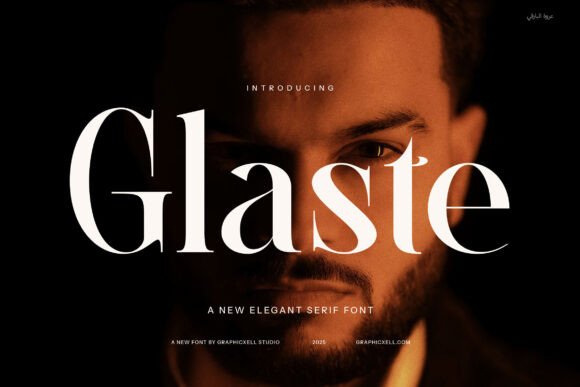
Glaste Font: Elevate Your Design with Elegance and Sophistication
In the world of typography, a font can make all the difference in the aesthetic and effectiveness of a design. For those seeking a typeface that embodies both modern elegance and timeless sophistication, the Glaste Elegant Serif Font is an exceptional choice. This contemporary and stylish font is designed to offer a unique blend of classic serifs and modern flair, making it perfect for a wide range of design projects.
Introduction to Glaste Font
Glaste Font is a meticulously crafted typeface that stands out for its finely tuned serifs, smooth curves, and distinctive ligatures. These features not only contribute to its elegant appearance but also provide designers with the flexibility to create customized and unique compositions. Whether you’re working on a luxury brand’s logo, a high-end fashion magazine, or an elegant wedding invitation, Glaste Font is designed to elevate your design.
Key Features of Glaste Elegant Serif Font
- Finely Crafted Serifs: The serifs in Glaste Font are designed with precision, offering a subtle yet sophisticated finish that enhances the readability and aesthetic appeal of the text.
- Smooth Curves: The curves in Glaste are smooth and flowing, contributing to the font’s elegant and modern feel. These curves ensure that the text appears refined and polished, regardless of the context.
- Unique Ligatures: Ligatures are special characters that combine two or more letters into a single glyph. Glaste Font includes a range of unique ligatures that allow designers to add a personal touch to their typography, creating a more distinctive and engaging visual experience.
- Alternate Forms: To further enhance its versatility, Glaste Font comes with alternate forms of its characters. These variations enable designers to experiment with different styles and create customized typographic compositions that stand out.
Design Versatility with Glaste Font
One of the standout qualities of Glaste Elegant Serif Font is its versatility. The inclusion of alternate forms and ligatures means that designers have a wide range of creative options at their disposal. This versatility makes Glaste suitable for various design applications, from editorial and advertising to branding and packaging.
For editorial projects, such as magazines and newspapers, Glaste Font offers a level of sophistication and elegance that can elevate the publication’s overall look and feel. In advertising, the font’s modern yet timeless appeal can help brands communicate their message in a stylish and compelling way.
Timeless Sophistication Meets Modern Elegance
Glaste Font strikes a perfect balance between timeless sophistication and modern elegance. Its classic serifs evoke a sense of tradition and reliability, while its smooth curves and contemporary design elements inject a dose of modernity. This balance makes Glaste an excellent choice for brands and designers looking to create a visual identity that feels both current and enduring.
The font’s ability to convey elegance and sophistication without appearing overly ornate or traditional sets it apart from other serif fonts. This quality makes Glaste particularly well-suited for luxury brands, high-end products, and premium services.
Applications of Glaste Font
Glaste Elegant Serif Font’s versatility and aesthetic qualities make it suitable for a wide range of applications, including:
- Branding and Logo Design: Create a lasting impression with a logo that exudes elegance and sophistication.
- Editorial Design: Elevate magazines, newspapers, and digital publications with refined typography.
- Advertising: Stand out in the crowded advertising space with typography that commands attention and conveys luxury.
- Packaging Design: Add a touch of elegance to product packaging and make it memorable.
- Wedding and Event Invitations: Create beautiful, bespoke invitations that set the tone for special occasions.
Glaste Elegant Serif Font is a powerful tool for designers seeking to infuse their projects with a sense of modern elegance and timeless sophistication. Its finely crafted serifs, smooth curves, unique ligatures, and alternate forms make it a versatile and stylish typeface suitable for a wide range of design applications.
By choosing Glaste Font, designers can create typography that not only looks beautiful but also communicates a sense of luxury, elegance, and refinement. Whether you’re working on a high-end brand project, a creative editorial piece, or a special event invitation, Glaste Font is an excellent choice for elevating your design to the next level.
FAQs About Glaste Font
- What makes Glaste Font unique?
- Glaste Font is unique due to its finely crafted serifs, smooth curves, and the inclusion of unique ligatures and alternate forms, which provide designers with a high degree of creative flexibility.
- Is Glaste Font suitable for digital use?
- Yes, Glaste Font is designed to be versatile and can be used effectively in both print and digital mediums. Its clear and elegant design ensures readability across various platforms.